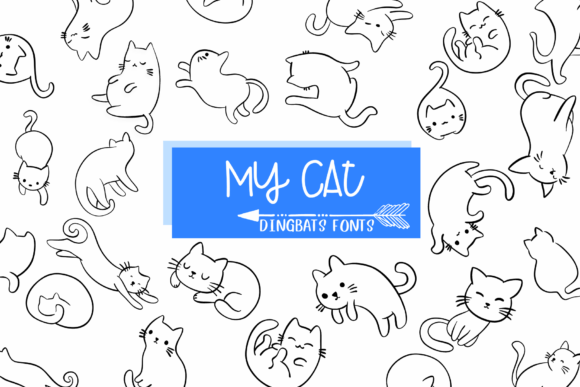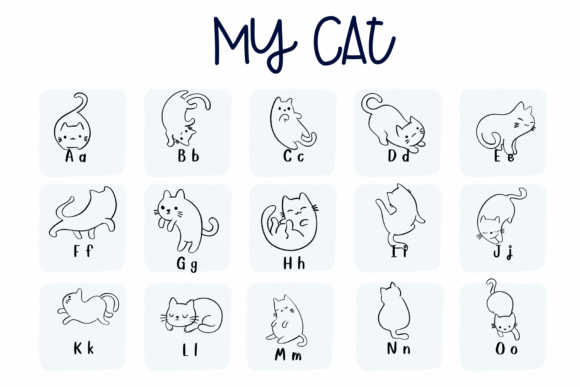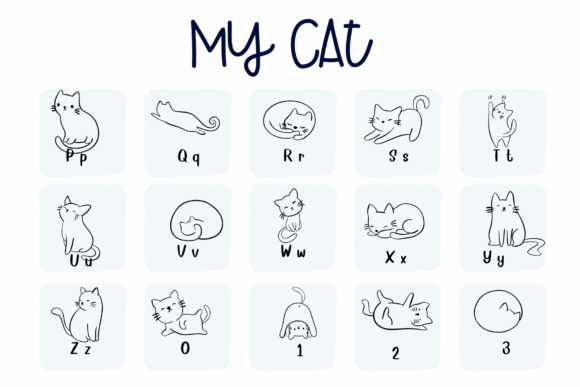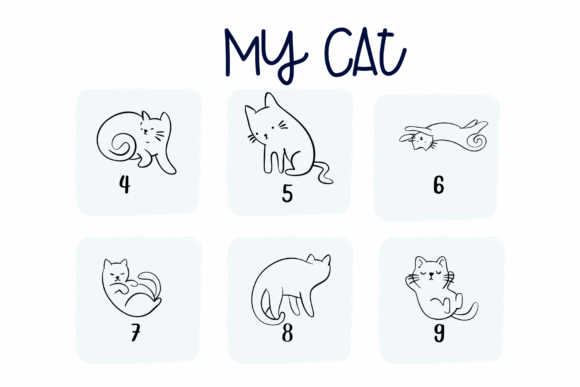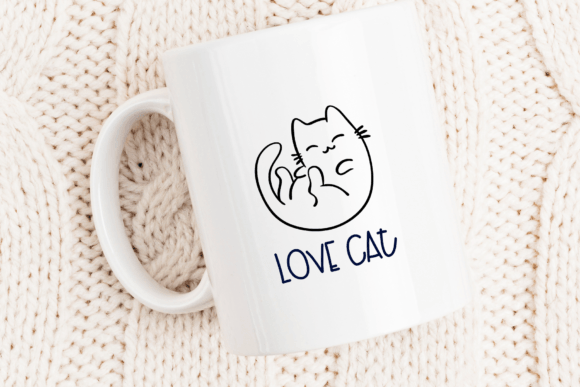
My Cat Font
My Cat is a fun and cute dingbat font featuring playful cat designs. Each letter and number is a different adorable cat illustration, perfect for adding a touch of whimsy to your projects.